Bold Decisions
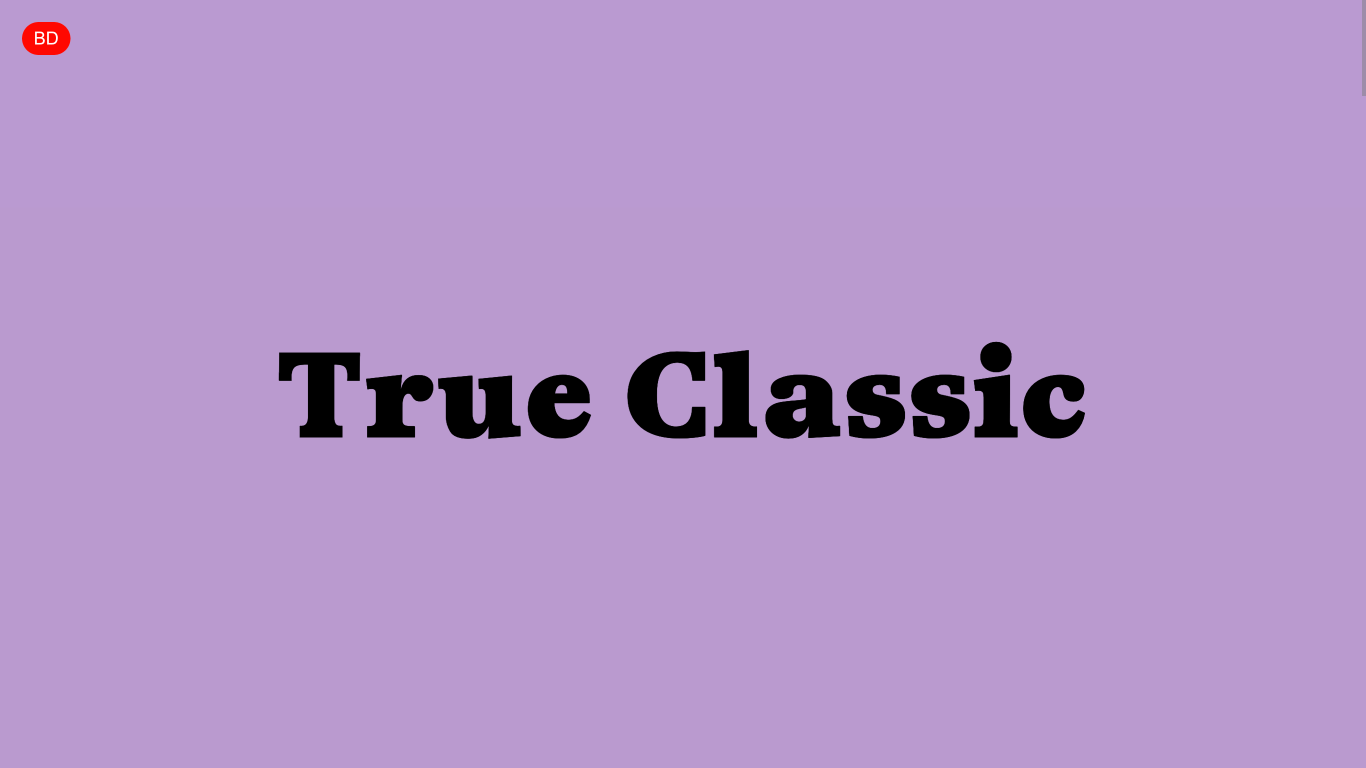
Netherlands
2015
Bold Decisions is a Danish type foundry founded in 2015 by Mads Wildgaard, specializing in custom and retail typefaces that blend versatility with eccentricity. Notable typefaces include 'Lars', a versatile sans-serif family, and 'True Sans', a modern sans-serif with a classic touch